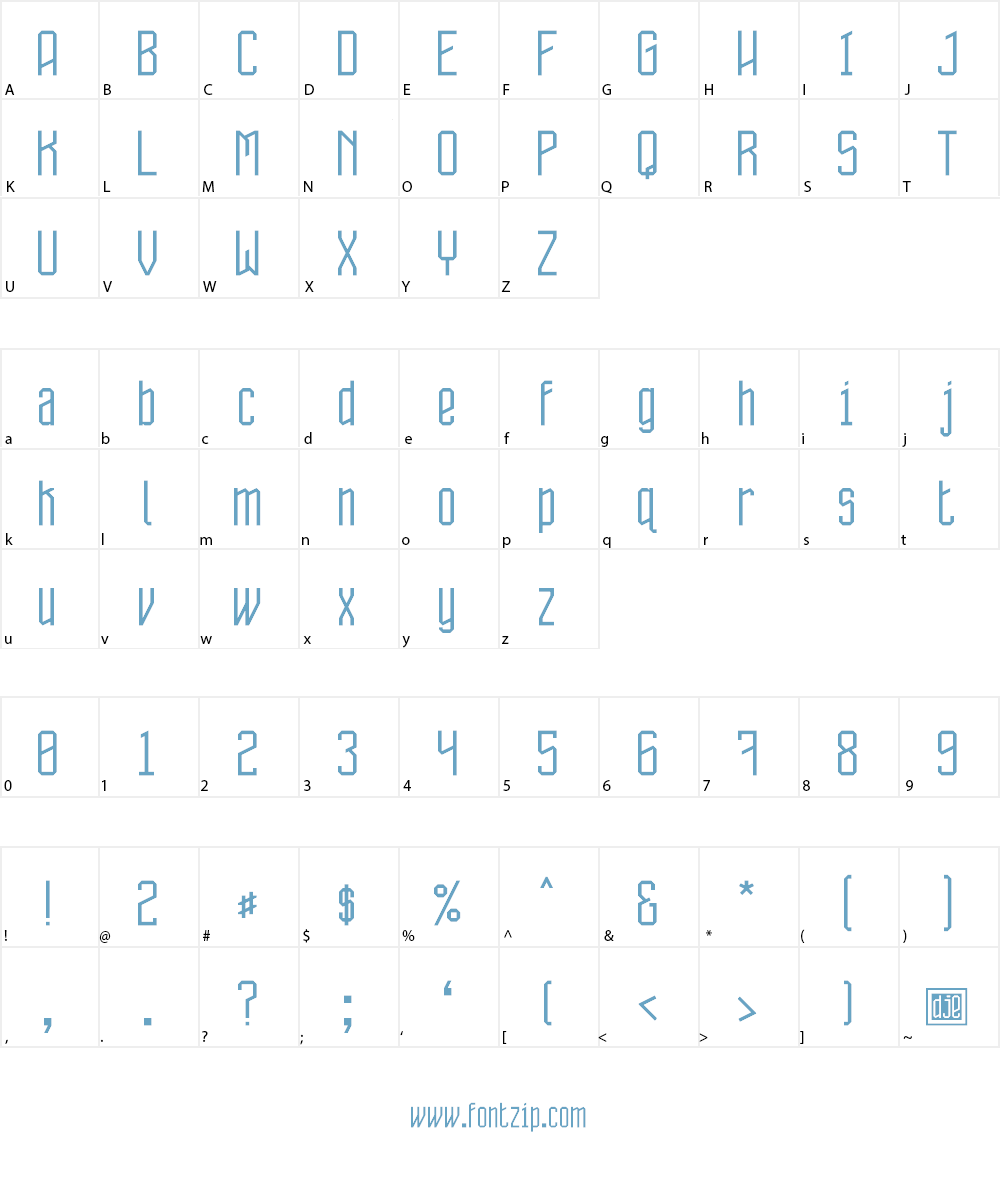
I made this font specifically as subtitles. As an alternative form of condensed. I do not think it would be suitable for the bodytext.
This is a revision of the font "Dhuwur" I have been published previously. Therefore I call "Dhuwur Loro". The word "Loro" means two in the Java language.